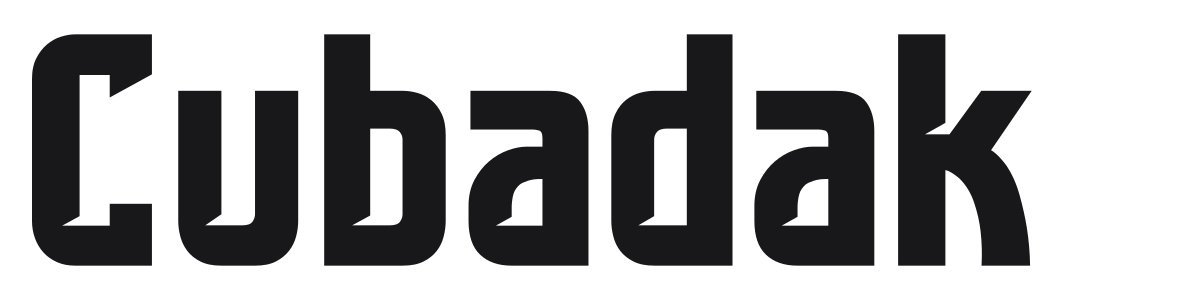
Cubadak
Cubadak is a heavily condensed bold sans-serif with a compact, muscular presence. Slightly rounded inner corners soften the otherwise geometric and blocky construction, giving it a retro-industrial warmth. Strong at poster sizes, logo lockups, and anywhere bold impact is the goal.